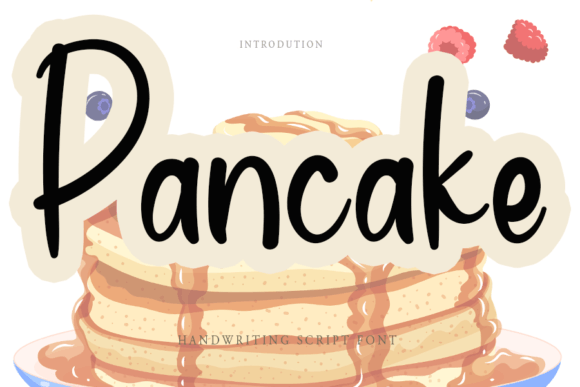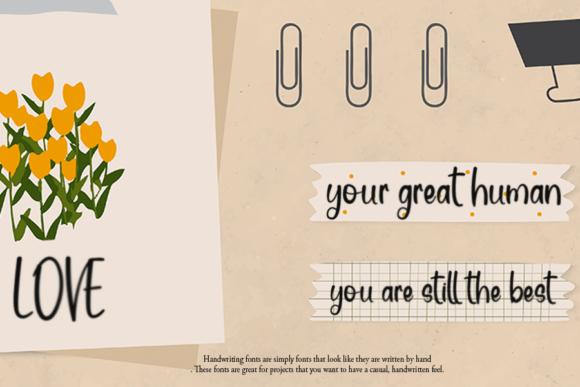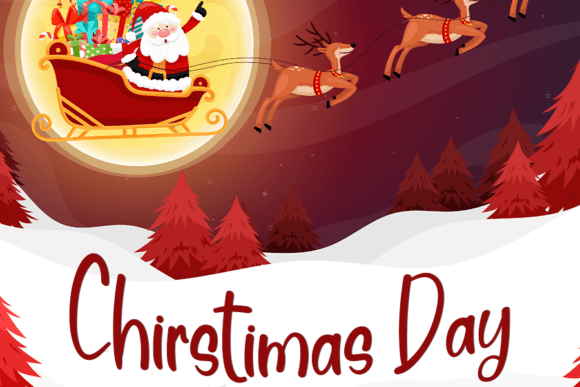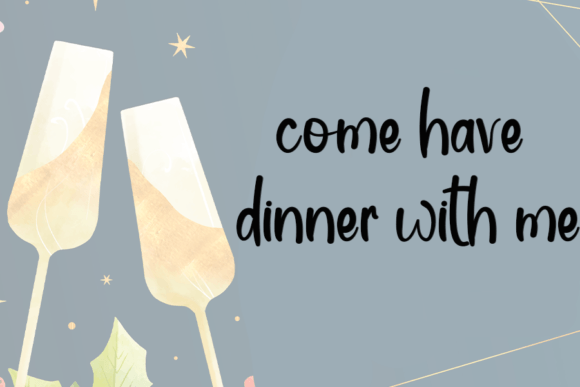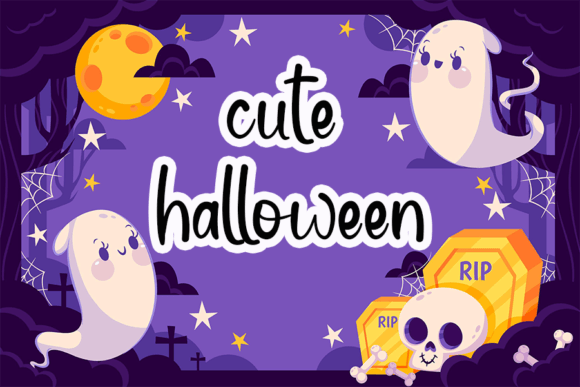
About Pancake Font
Pancake Font is a casual handwritten script that combines a neat design with a natural handwritten look. Its smooth strokes and balanced structure give it a friendly personality that works well for a wide variety of projects. Because of its relaxed charm, Pancake Font is perfect for designs that need an approachable yet stylish touch.
A Casual Handwritten Typeface with Personality
Handwritten fonts often bring warmth to projects, and Pancake Font captures this spirit with its simple yet polished appearance. Its strokes provide consistency without losing the natural flow of handwriting. Moreover, it maintains excellent readability, which makes it suitable for both personal and professional work. As a result, it adapts beautifully to many creative styles.
Perfect Typeface for Greeting Cards and Headlines
If you want to design greeting cards or eye-catching headlines, PancakeFont is a strong choice. For example, it can transform a birthday card into a heartfelt keepsake. In addition, it works wonderfully for headlines in posters, magazines, and digital layouts. Because of its casual look, every piece feels both inviting and memorable.
A Script Typeface for Branding and Posters
Businesses and content creators can also benefit from Pancake Font. Logos, packaging, and labels gain personality when designed with this handwritten script. Furthermore, it enhances posters and advertisements by creating a sense of creativity and authenticity. On social media, Pancake Font makes posts and banners feel more approachable while keeping them stylish.
Another advantage of PancakeFont is its adaptability across different platforms. In print, it looks excellent on brochures, stationery, merchandise, and event materials. Digitally, it improves websites, blogs, presentations, and social media graphics. Since its neat strokes scale well, it remains clear in both small captions and large headlines.